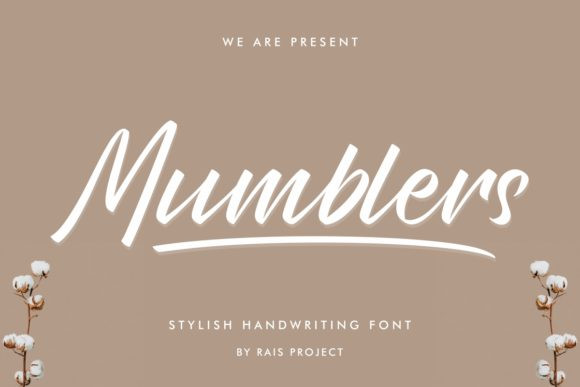
Mumblers Font
Mumblers is a cursive and stylish handwritten font. It has a classy, elegant and modern look that can be used for logos, branding, invitations, stationery, wedding designs, social media posts, and much more! This font is PUA encoded which means you can access all of the glyphs and swashes with ease!